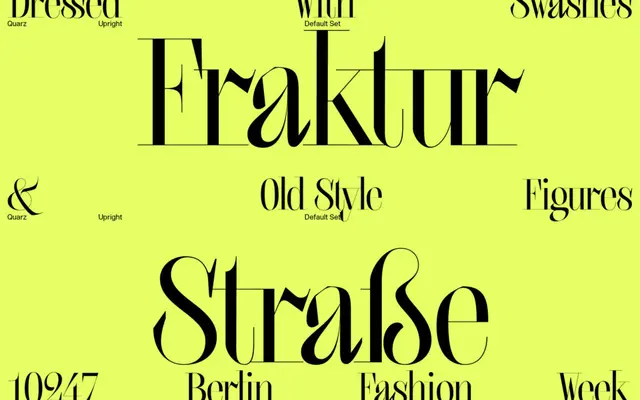
ES Quarz
ES Quarz specimen from Extraset
A single-weight Didone display face by Alex Dujet that grafts American 1970s design quirks onto classical high-contrast serif structure through a system of chained ligatures and swash forms.
Designed by Alex Dujet, ES Quarz sits somewhere between Didot and 1970s American lettering, with five OpenType stylistic sets, contextual and discretionary ligatures, and automatic swash positional forms intended for titling work. The chain ligature system links successive letter combinations, producing runs of connected glyphs that give headlines an idiosyncratic, almost calligraphic rhythm. Available in a single Regular weight, it is a narrow-use face suited to luxury branding and editorial display contexts.
A Didone display face with hybrid influences drawn from American 1970s design, prioritising headline use through chain ligatures and swash forms rather than text setting.